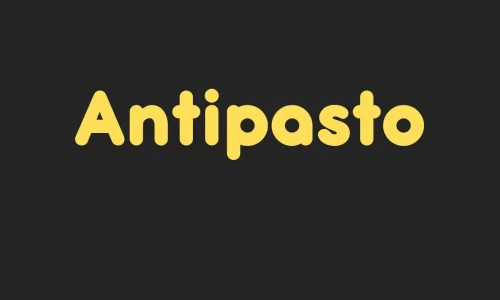
The Fox Logo font resembles the smooth fur of an intelligent animal. Its sleek and modern design makes it ideal for creating chic logos for brands related to foxes, designing modern product labels, or bringing sophistication to your branding.
| Name | Fox Logo Font |
| Designer | Ralph M. Unger |
| Style | Logo |
This font has a bold weight and standard width, ensuring your words convey a sense of sleek elegance. Picture using the Fox Logo font for a fashion brand, turning your text into a symbol of sly style.